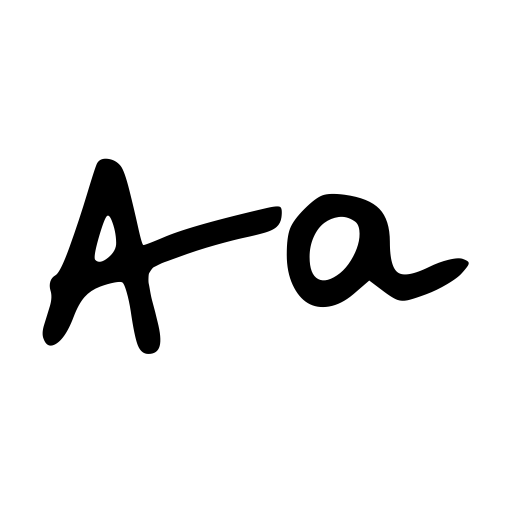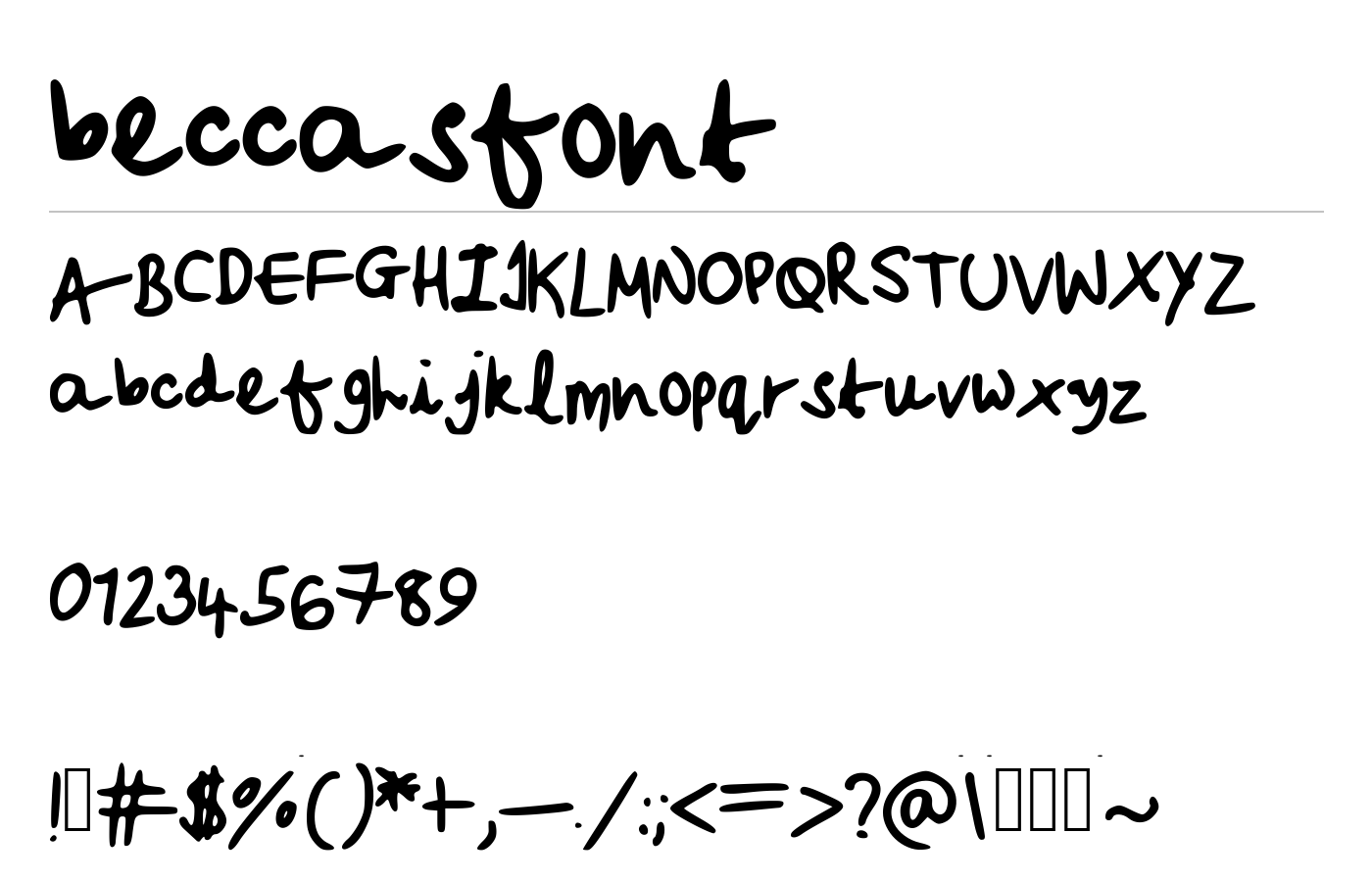
Beccasfont is a casual, handwritten sans serif font that feels friendly and approachable with its irregular, playful letterforms and medium weight. Its lively, informal style makes it perfect for creative projects, personal branding, children's materials, or any design needing a warm, human touch. This font works best in headlines, social media graphics, and packaging where a relaxed and personal vibe is desired.